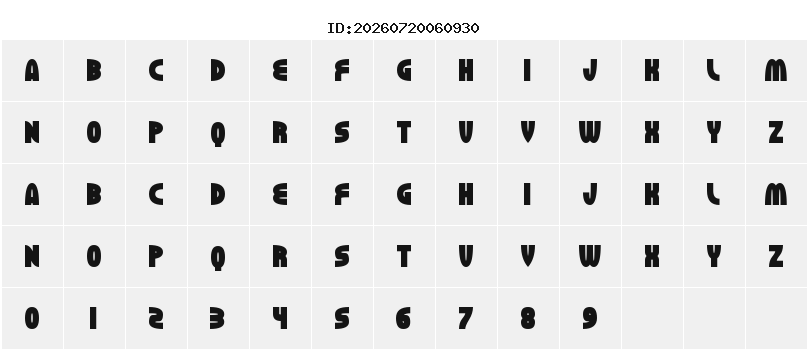
ERHANK.otf
About ERHANK.otf
ERHANK.otf is a modern, elegant sans-serif font designed for ultimate readability and visual harmony. Perfect for branding, headlines, web design, and print materials.